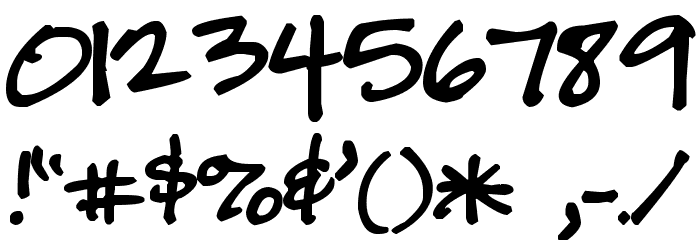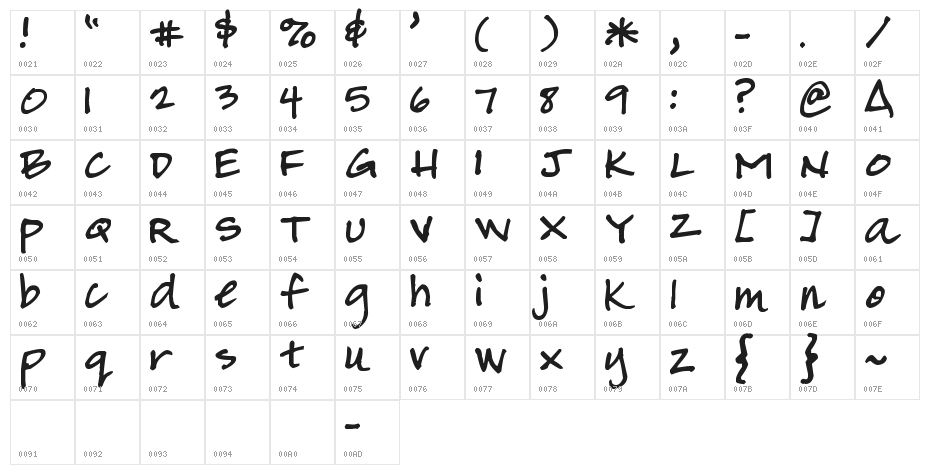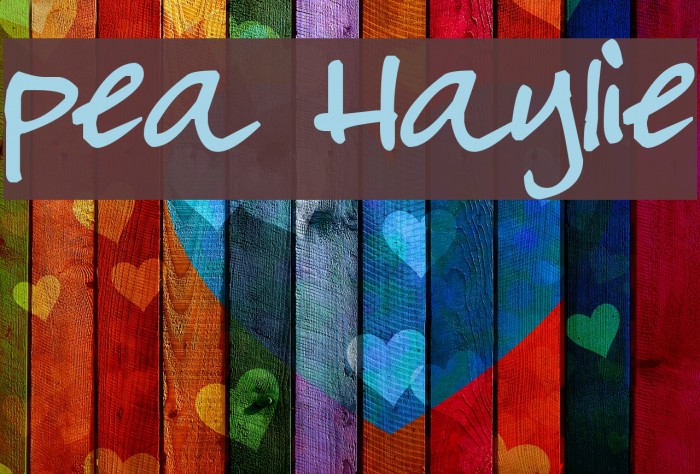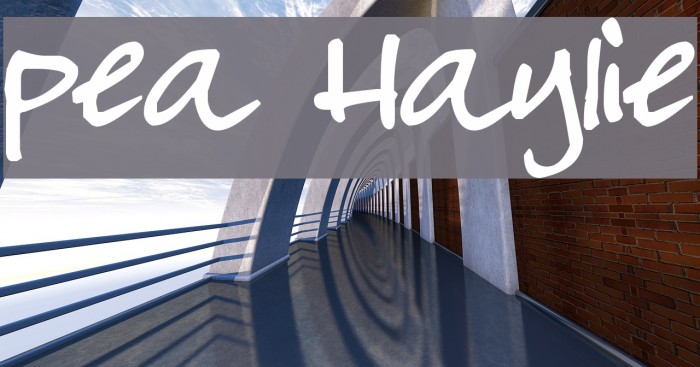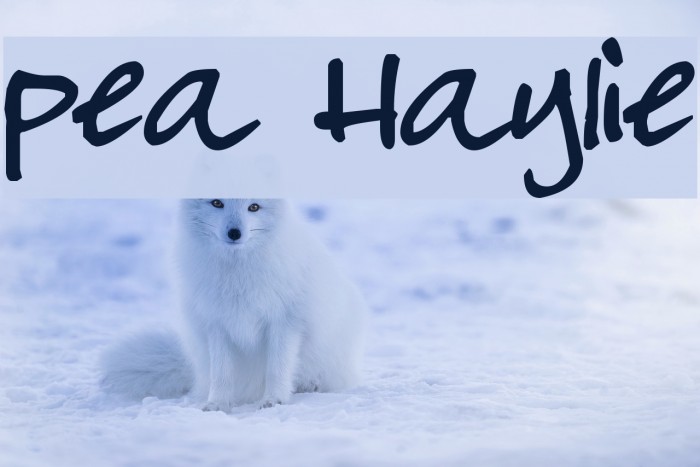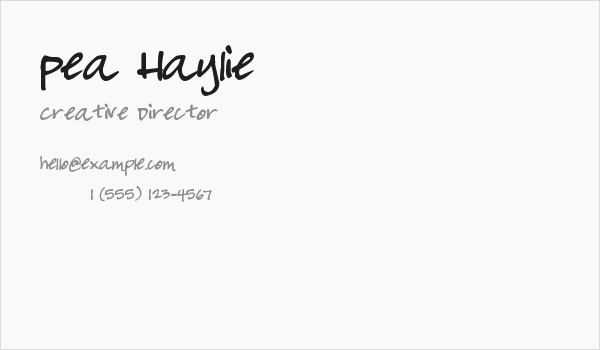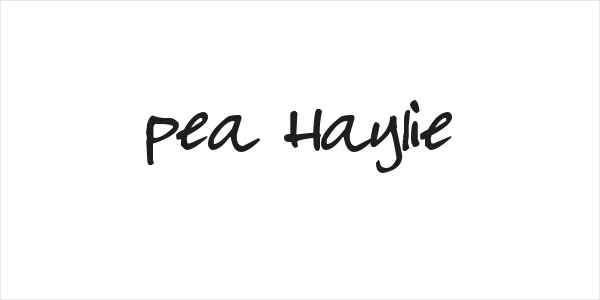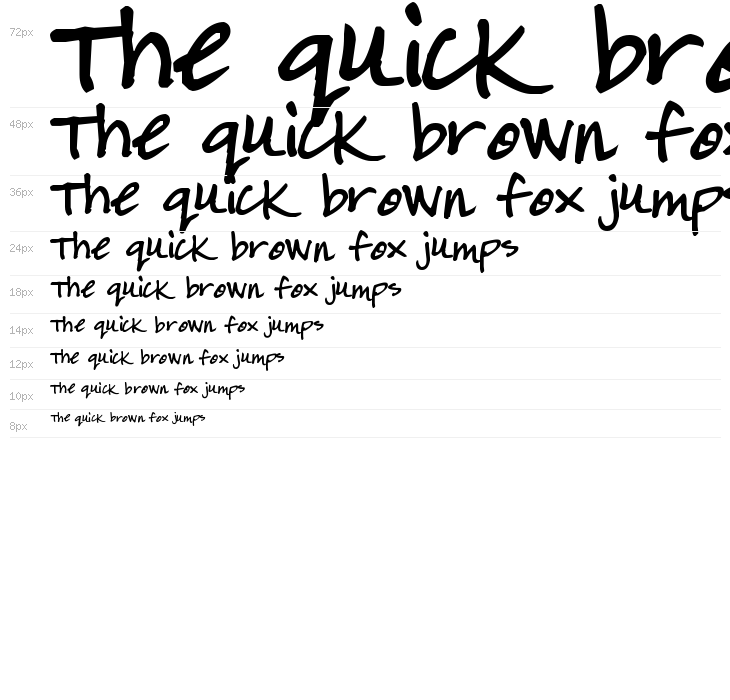
Pea Haylie Font
Pea Haylie Description
This font features a playful and casual handwritten style, characterized by its dynamic and slightly irregular strokes. The letters are bold and expressive, with a natural flow that mimics authentic handwriting. The uppercase and lowercase letters maintain a consistent style, with rounded edges and a slight slant, adding to the informal and approachable feel. The numerals and special characters are equally expressive, maintaining the overall aesthetic. This font is ideal for projects that require a personal touch or a friendly, informal vibe.
| Use Case | Headlines, Informal text, Personal projects |
| Proposed Projects | Greeting cards, personal blogs, children's books, casual branding, and social media graphics. |